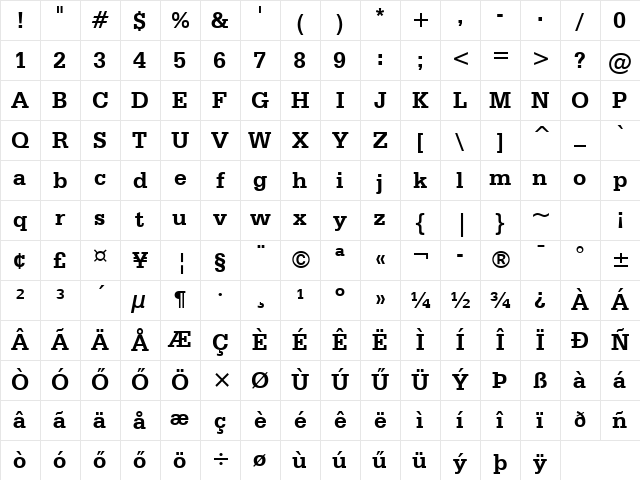
Huni_Serifa BT Bold Regular
Design Context for Huni_Serifa BT Bold
Huni_Serifa BT Bold carries the refined structure of traditional serif typography, with bracketed terminals and considered proportions that communicate credibility and craft. Its bold stroke weight gives it real presence on the page.
Pro Tip: Use Huni_Serifa BT Bold for editorial body copy and considered headline work. Pair with a neutral sans for UI elements or captions to create a classic hierarchy.